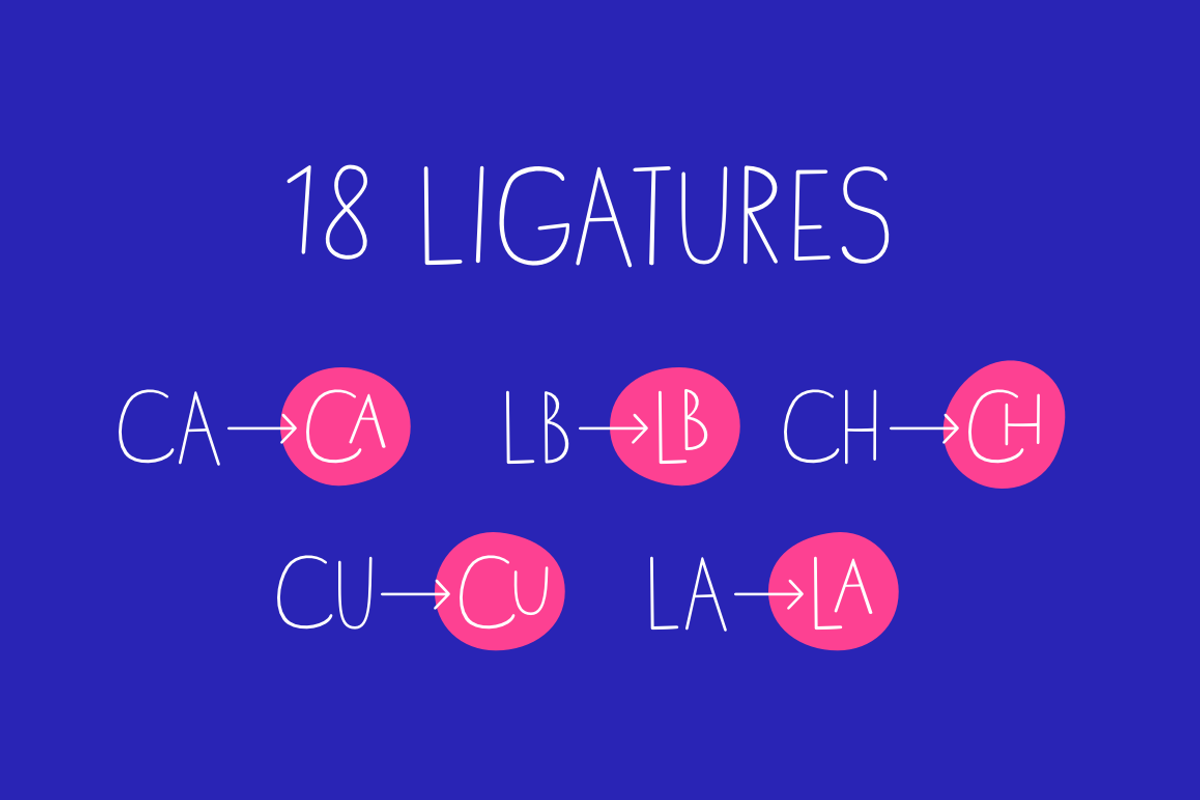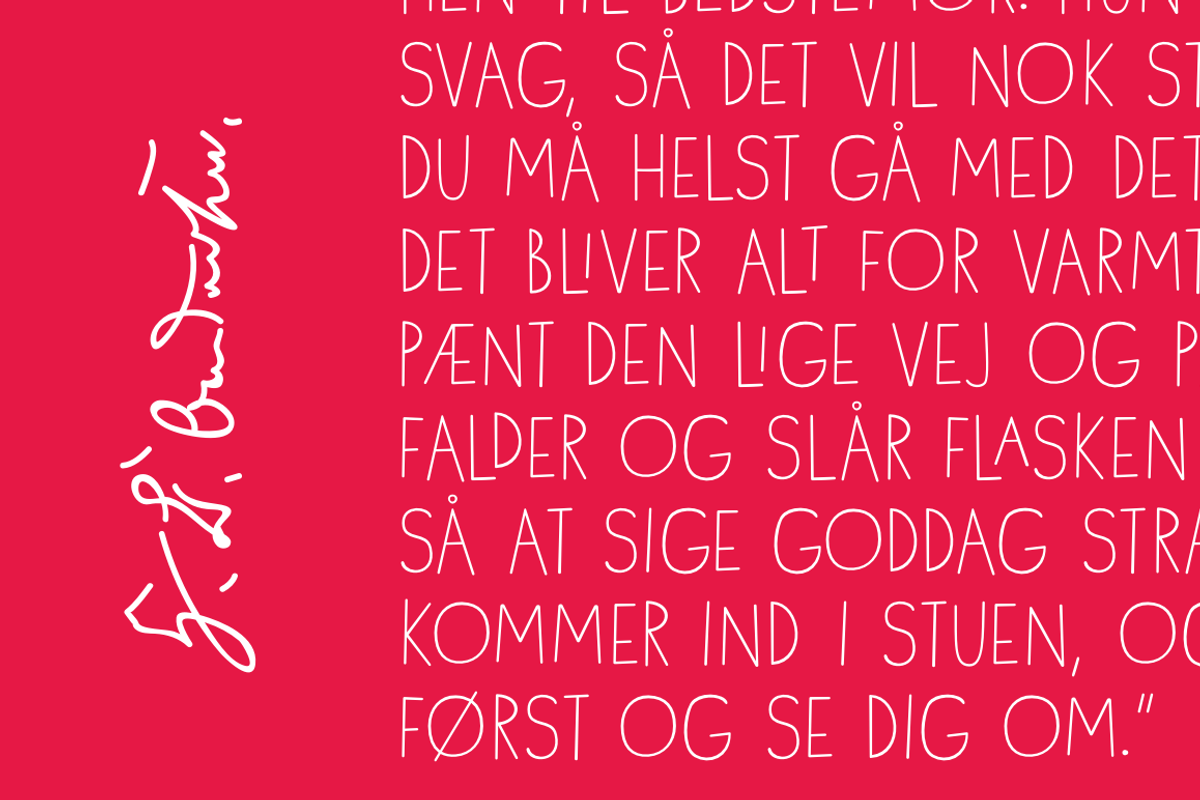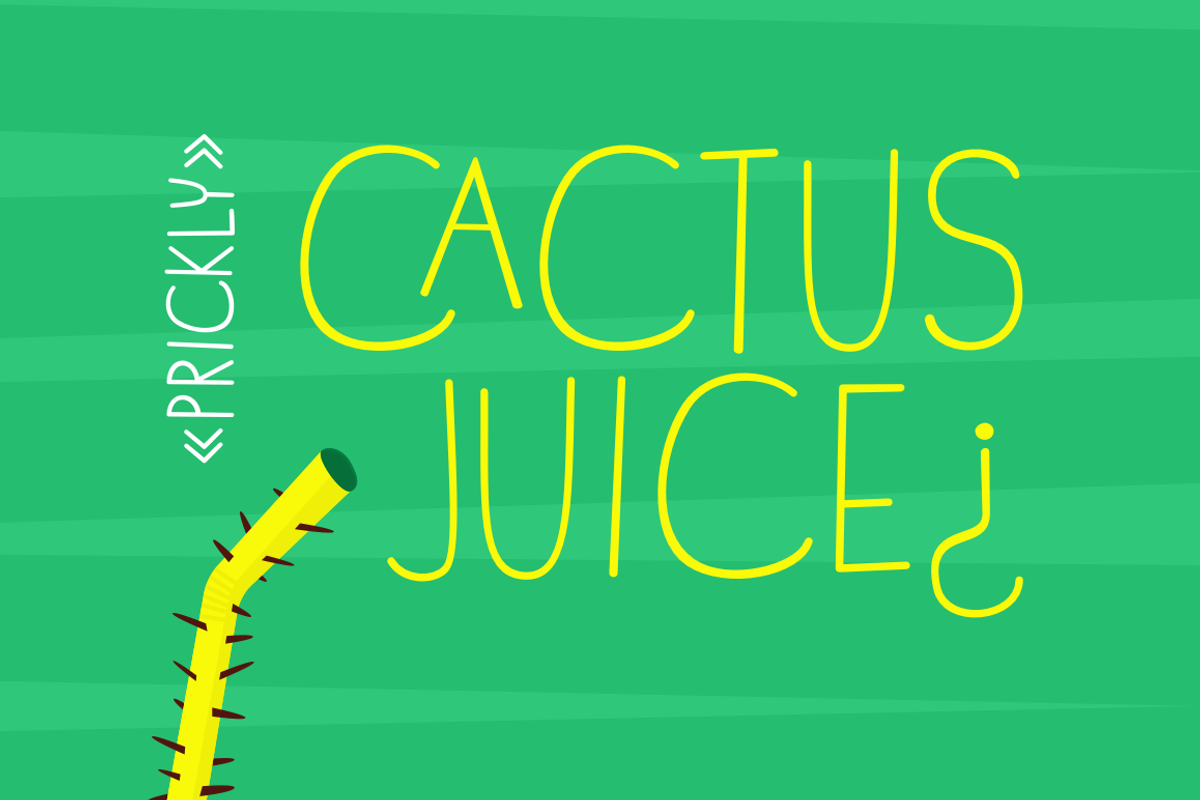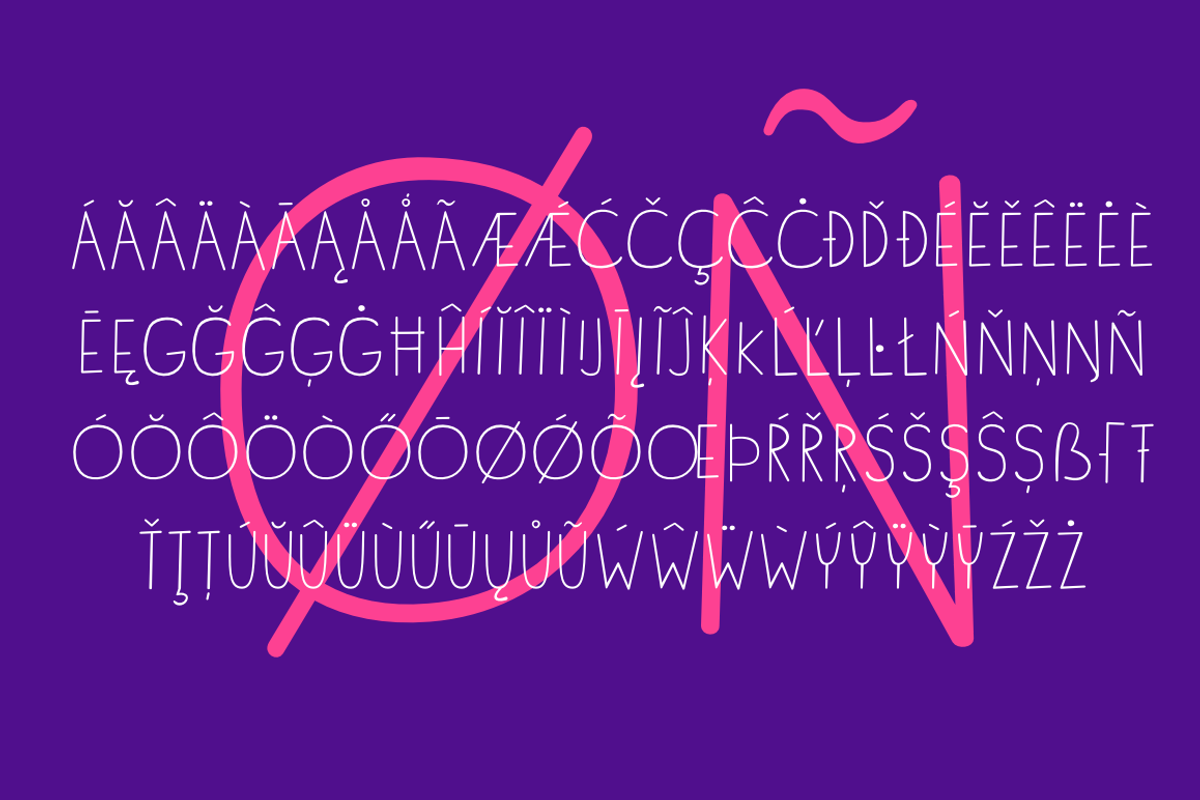
Cubicoola Regular & Bold
Cubicoola is a playful, friendly and distinctive all-caps typeface inspired by hand-drawn posters. The deliberately wide width of some characters along with the gently variated angle, creates playful combinations. A symmetrical thin stroke with rounded endings makes it modern and legible typeface.
It fits on book covers, posters, labels, greeting cards, announcements, headline messages, packaging or perhaps your next project logo. Applicable pretty well to all topics for children.
Contains a total of 429 glyphs, including latin extended diacritics for most languages. Carefully tuned kerning and 18 ligatures makes it even usable for longer paragraphs. Useful in both big and small sizes.
Give it a try and summon interesting and creative letter combinations.
- Legible modern hand-written all-caps typeface
- Regular & Bold weight
- Alphabet letters, numerals, punctuation and symbols
- Upper case is equal to lower case characters
- 429 glyphs, including 18 ligatures
- Carefully tuned kerning
- Latin extended support